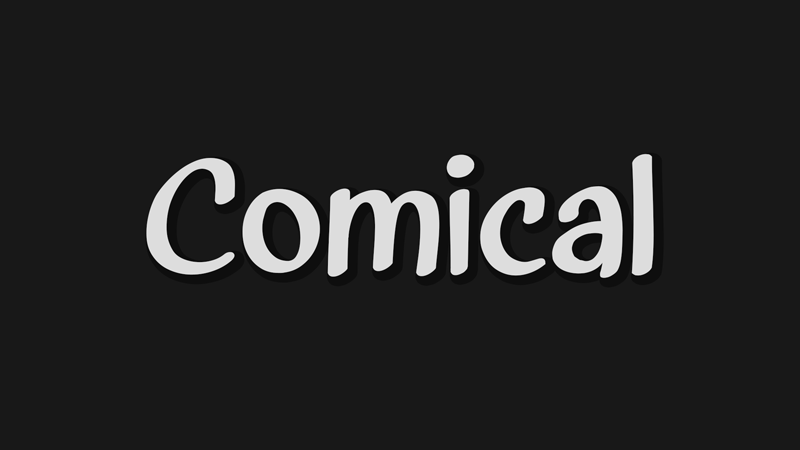
Preview and download LT Comical Font. Created by Daniel Lyons in Fancy Comic styles with 100% Free license.
Font name: | LT Comical |
Author: | Daniel Lyons |
Note by Daniel Lyons | |
Usable for cartoons, comic books, and anything else of the like. Part of LyonsType Classics. |